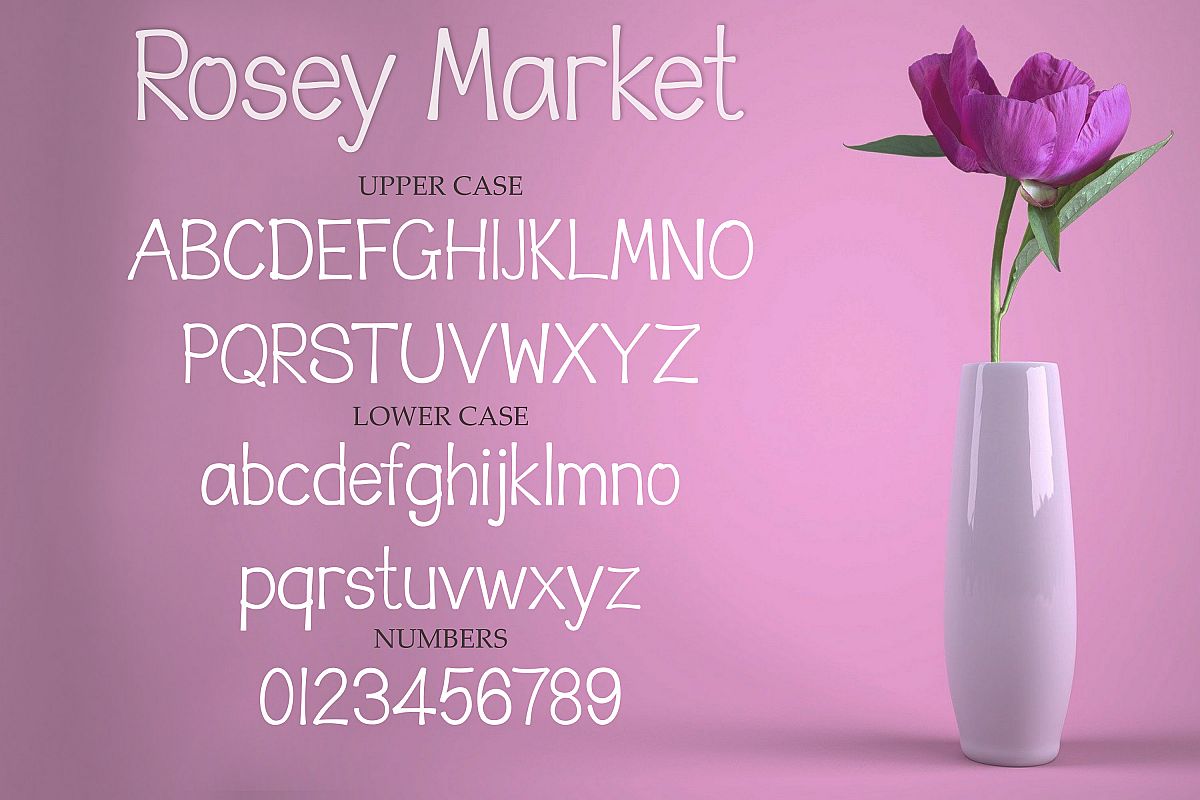
Rosey Market - a fun handwritten font
Introducing Rosey Market, a new handwritten font!
The font features standard characters A-Z, a-z, 0-9, and loads of punctuation and multilingual characters.